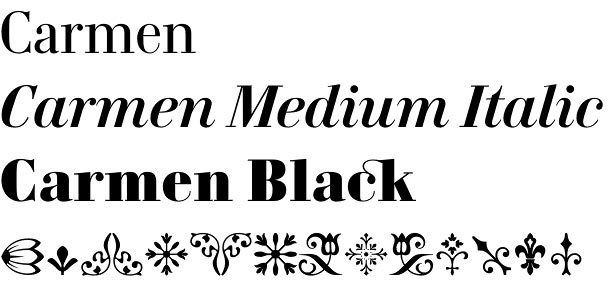
Carmen font
In 1845 the French writer Prosper Merimee published a novella which, in the years to come, became immortal classic. It was named Carmen and told the tale of a passionate and fiercely independent gypsy woman. It is this woman’s fiery nature that inspired graphic designer Andreu Balius to create a font especially for a new revised edition of the famous book. As it can be expected Carmen font hints at early nineteenth century Spain but at the same time has a very contemporary appearance. The shape of the letters that are elegant and extravagant makes it suitable both for reading text and headlines. Carmen typeface’s Italics add extra dynamics to the text, whereas Carmen Black gives prominence to the details that feature in the Regular and Medium styles, giving them greater depth and strength.
Carmen font proved popular immediately after its release and was used extensively especially in fashion magazines in different countries. Its customized version was used even as a corporate typeface for Victoria’s Secret lingerie. Awards followed soon too, as Carmen typeface was selected as one of Typographica “Favorite Typefaces” of 2008 and “Top Type” of 2009 FontShop.